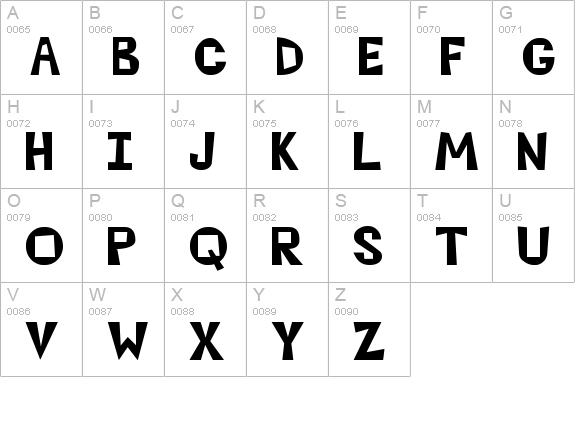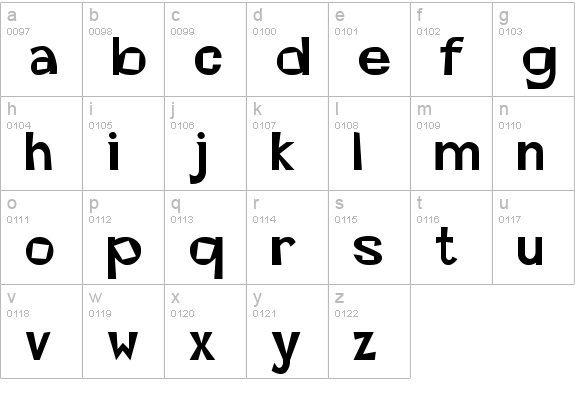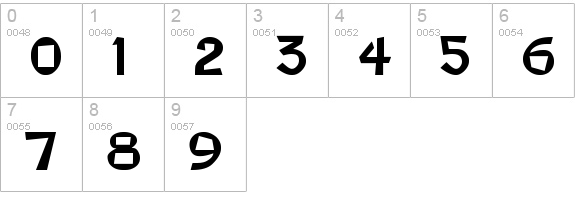
Abierta Font Details
Abierta font is a beautifully crafted typeface that exudes elegance and sophistication. With its clean lines and modern aesthetic, Abierta font is perfect for a wide range of design projects, from branding to editorial design. Its versatile nature allows it to be used in various contexts, making it a must-have font for any designer. What sets Abierta font apart is not only its stunning design but also the fact that it is completely free to download at FontsMarket.com. This means that you can access this high-quality font without any cost, making it a valuable addition to your font library. Whether you are working on a personal project or a commercial venture, Abierta font is sure to elevate your designs and make a lasting impression. Embrace the beauty and versatility of Abierta font today by downloading it for free at FontsMarket.com. Elevate your designs with this exquisite typeface and bring your creative vision to life effortlessly.